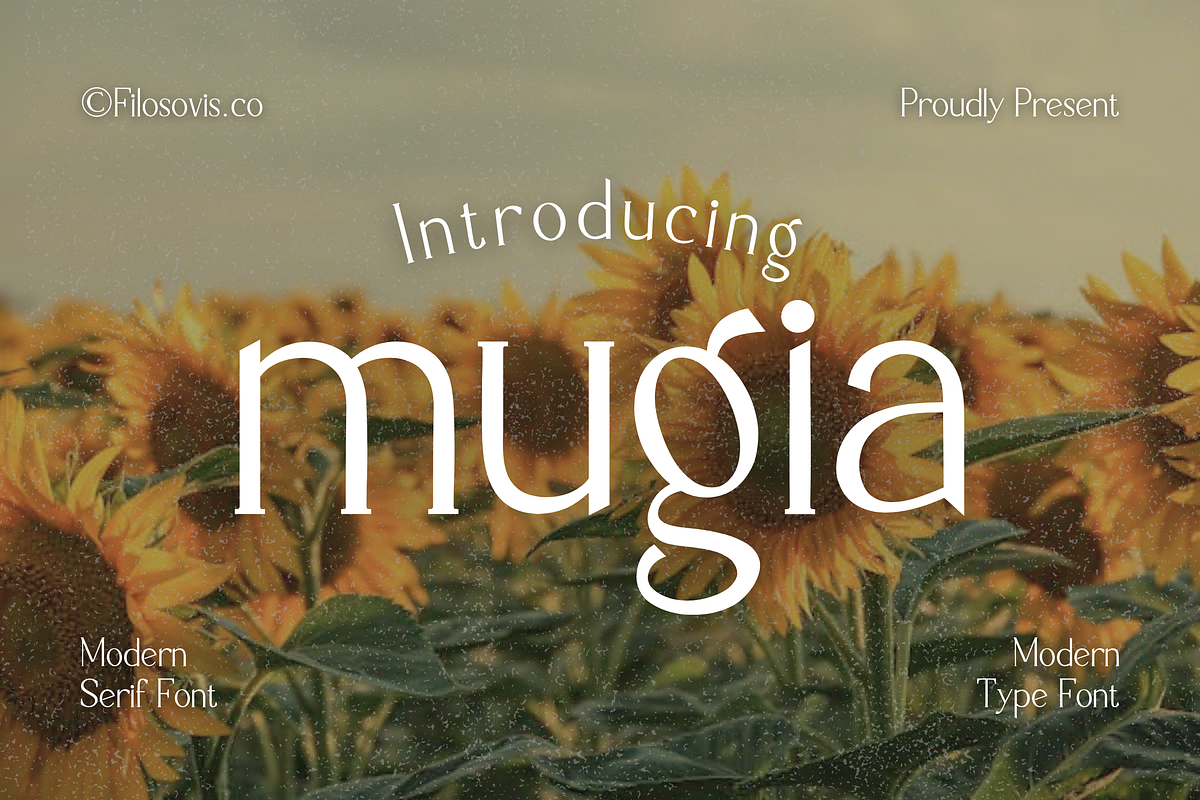
Mugia | Modern Serif Font Free Download
Mugia | Modern Serif Font Free Download is a stylish and contemporary serif typeface designed to bring elegance and sophistication to your projects. Please note: you must purchase this font for commercial use, but you can test it through a free download. With its clean lines, high contrast, and refined curves, Mugia is perfect for branding, editorial layouts, fashion designs, wedding invitations, and upscale product packaging.
This font blends timeless serif tradition with a fresh, modern twist—making it ideal for creatives who want to make a polished, lasting impression. Whether you're designing a luxury logo or crafting refined marketing materials, Mugia | Modern Serif Font Free Download offers clarity, elegance, and versatility. Fully compatible with Adobe Illustrator, Photoshop, Canva, and more. Download it today for personal use and elevate your typography with the graceful beauty of Mugia.